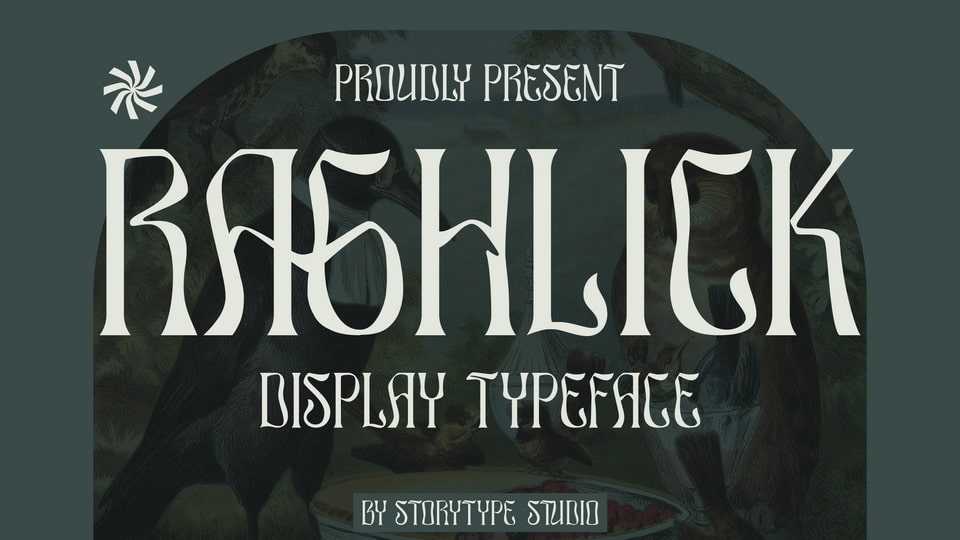
Download Raghlick font, a vintage display typeface that has own unique style and modern look. Raghlick font is perfect for an elegant retro logo, book or movie title design, fashion brand, magazine, clothes, lettering, quotes, and so much more.